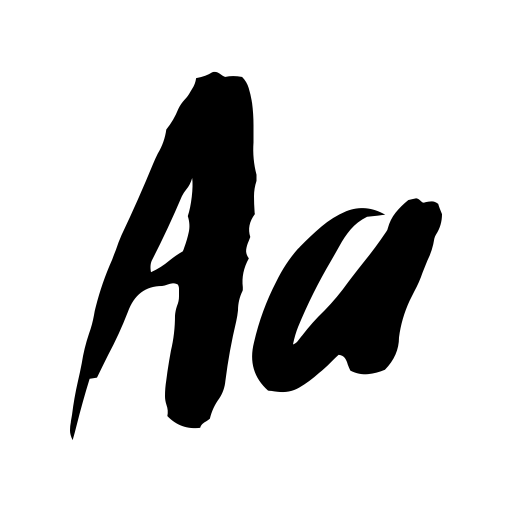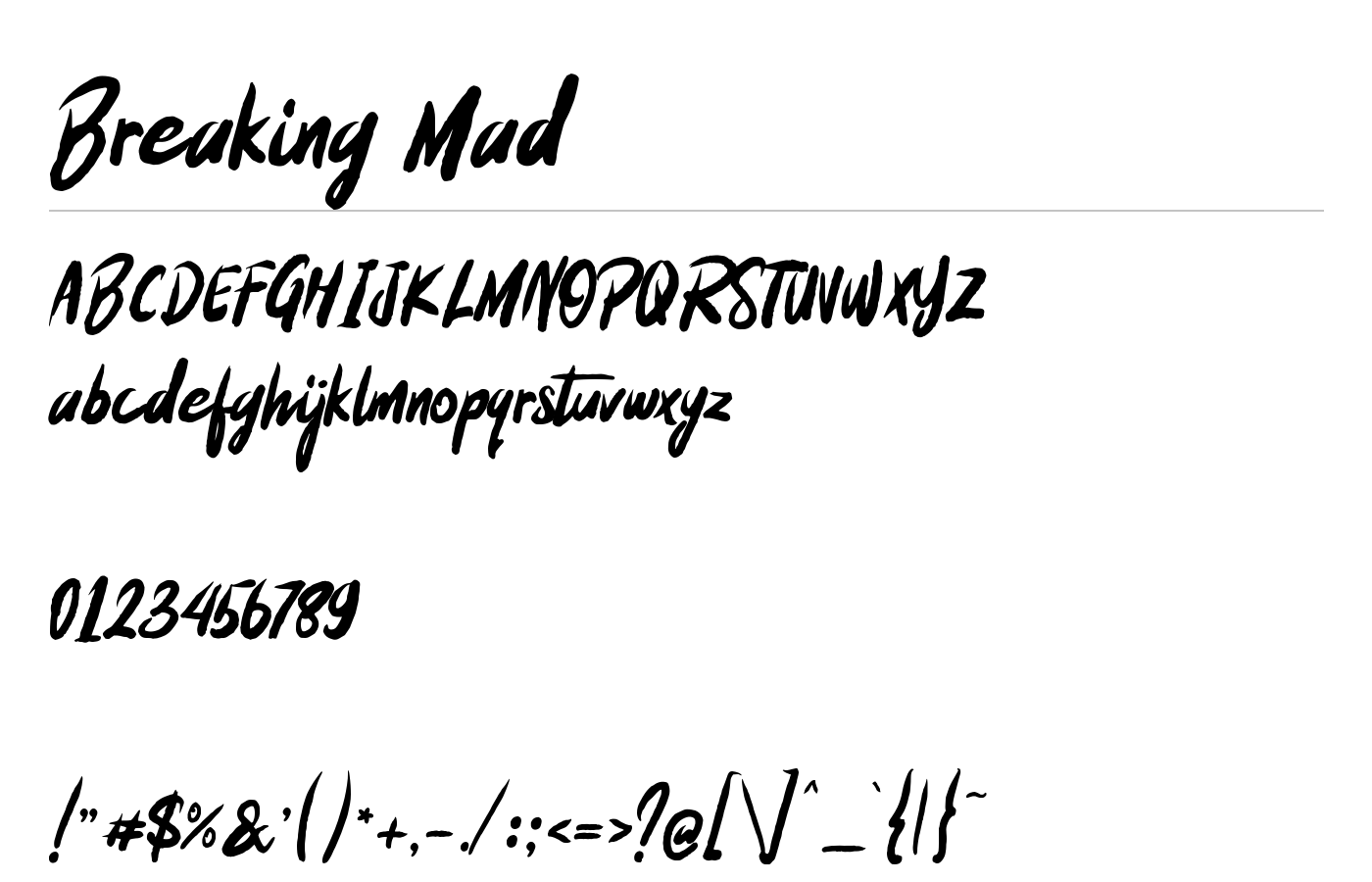
Breaking Mad is a bold, energetic script font with a rough, hand-painted feel that brings a sense of urgency and dynamism to any design. Its irregular strokes and slightly slanted letterforms make it perfect for expressive branding, posters, and creative projects that want to capture a rebellious or edgy vibe. This font works well when you want to add personality and a raw, artistic touch to headlines, logos, and eye-catching display uses.
Breaking Mad Font
About Breaking Mad Font
| Font family | Breaking Mad Font |
| Designer | Lettersiro 2018 |